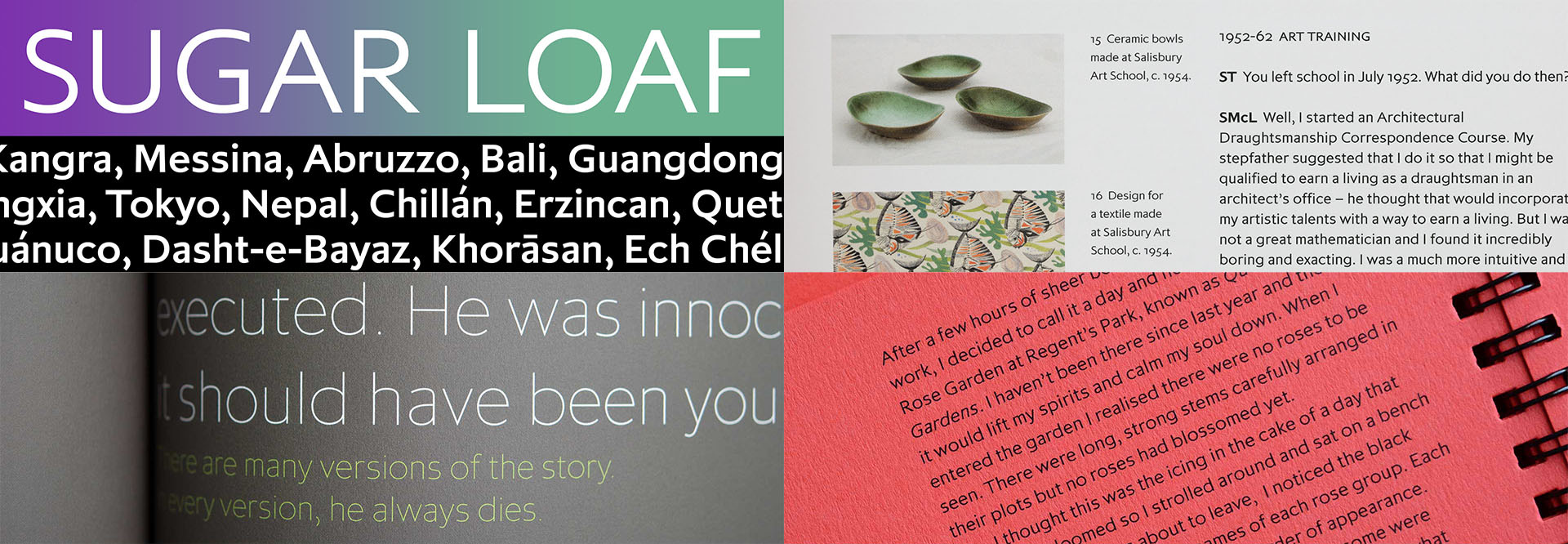
Pembroke Font
Pembroke Font is perfect for Welsh cultural projects, British heritage brands, traditional craftsmanship, historical societies, Celtic-inspired designs, academic institutions, literary publications, cultural museums, heritage tourism, and distinguished Welsh educational materials.
What makes Pembroke Font exciting is its Celtic heritage that embodies the rich cultural tradition of Wales and British scholarly excellence through distinguished letterforms. This prestigious typeface combines academic elegance with cultural authenticity, creating a personality that communicates tradition, scholarship, and genuine Celtic pride. The font's Welsh-inspired character and scholarly appeal make it perfect for educational institutions, cultural organizations, and heritage brands seeking to honor the magnificent legacy of Welsh culture and British academic tradition.
The Pembroke Font family includes Regular, Bold, Light, Medium, Academic, Heritage, Condensed, and Celtic variants. Each weight maintains the font's Welsh character while providing comprehensive typographic flexibility for cultural brand identity systems and academic design applications across diverse educational platforms.
Whether you're developing Welsh cultural identities, creating heritage marketing materials, designing academic publications, or building educational campaigns, Pembroke Font delivers unmatched Celtic appeal and Welsh sophistication. Its distinguished presence makes it perfect for Welsh universities, cultural institutions, heritage organizations, and educational establishments seeking authentic Welsh representation.
The font's scholarly proportions and heritage details create an inspiring reading experience that honors the magnificent castles of Pembrokeshire and proud Welsh academic tradition. Each letterform has been carefully crafted to preserve Celtic typographic heritage while maintaining excellent readability across modern educational applications.
This versatile typeface excels in academic environments, offering designers the authenticity needed for comprehensive Welsh brand communication strategies. The extensive character set includes Celtic alternates, heritage ligatures, and Welsh symbols for cultural market positioning and educational brand storytelling.
Embrace the power of Celtic design that celebrates Welsh culture and distinguished academic heritage.